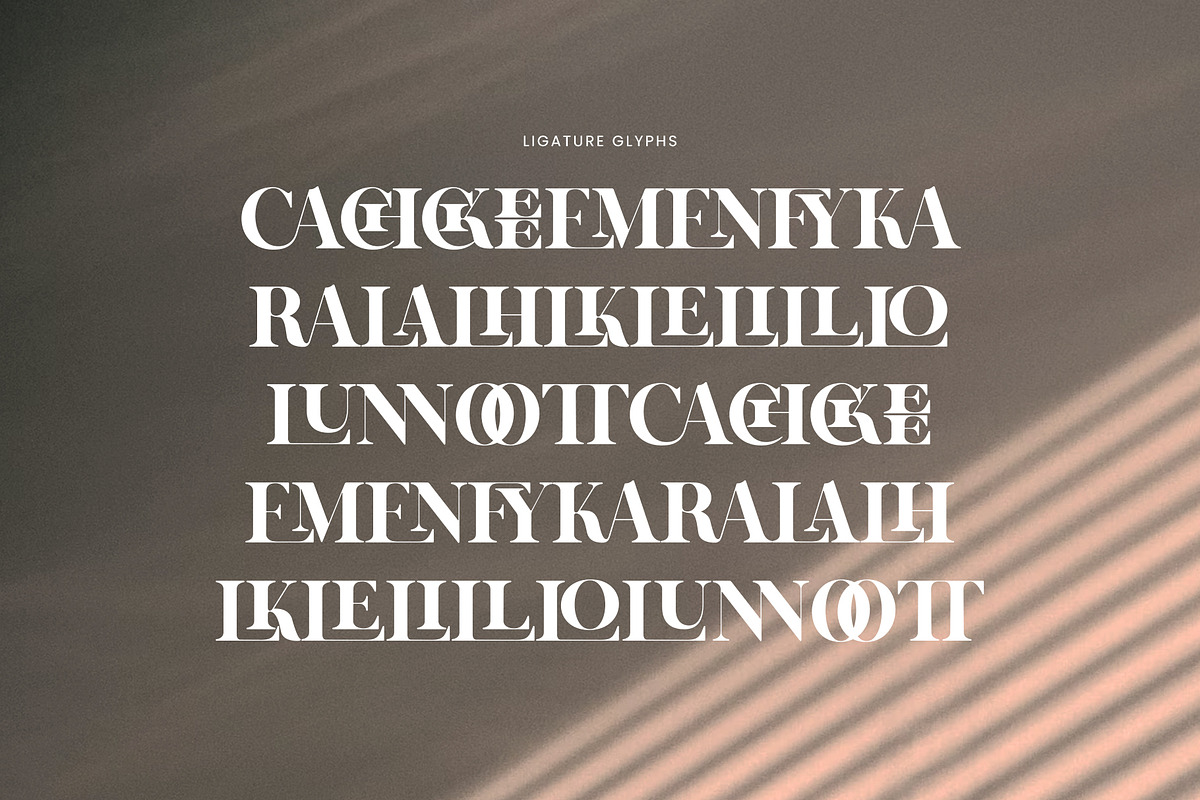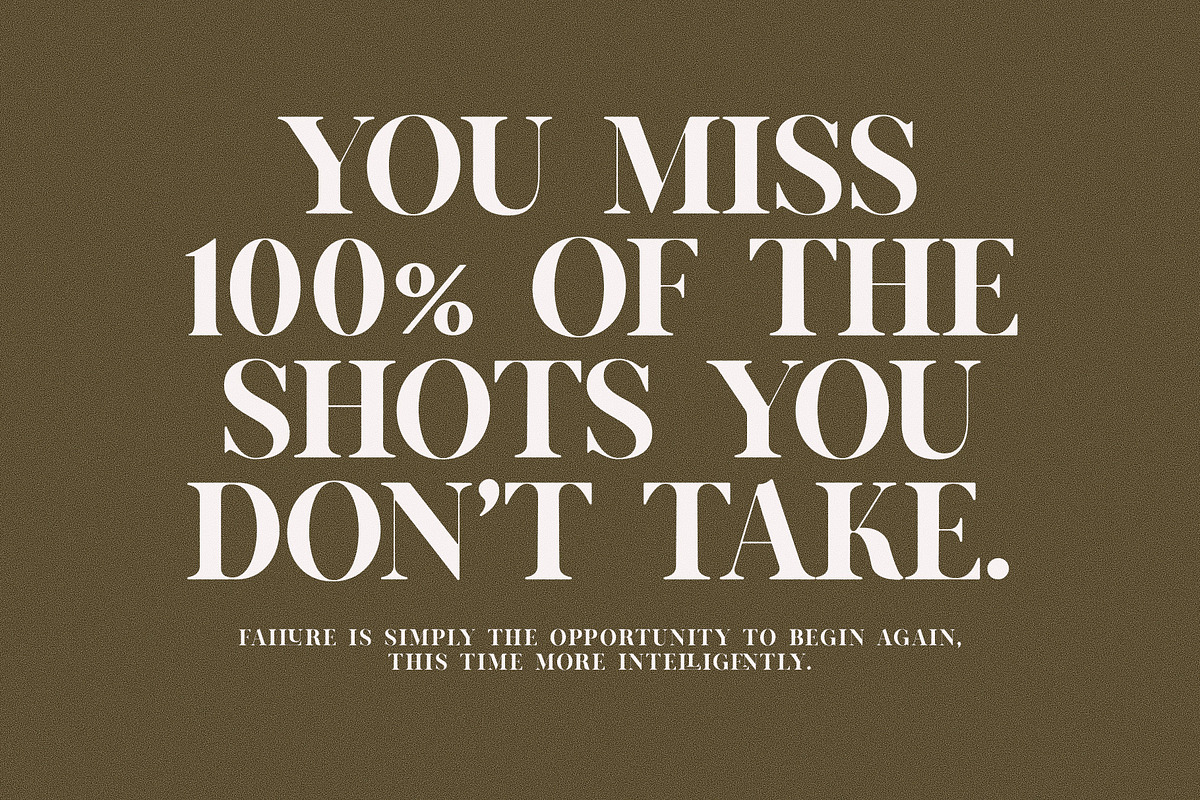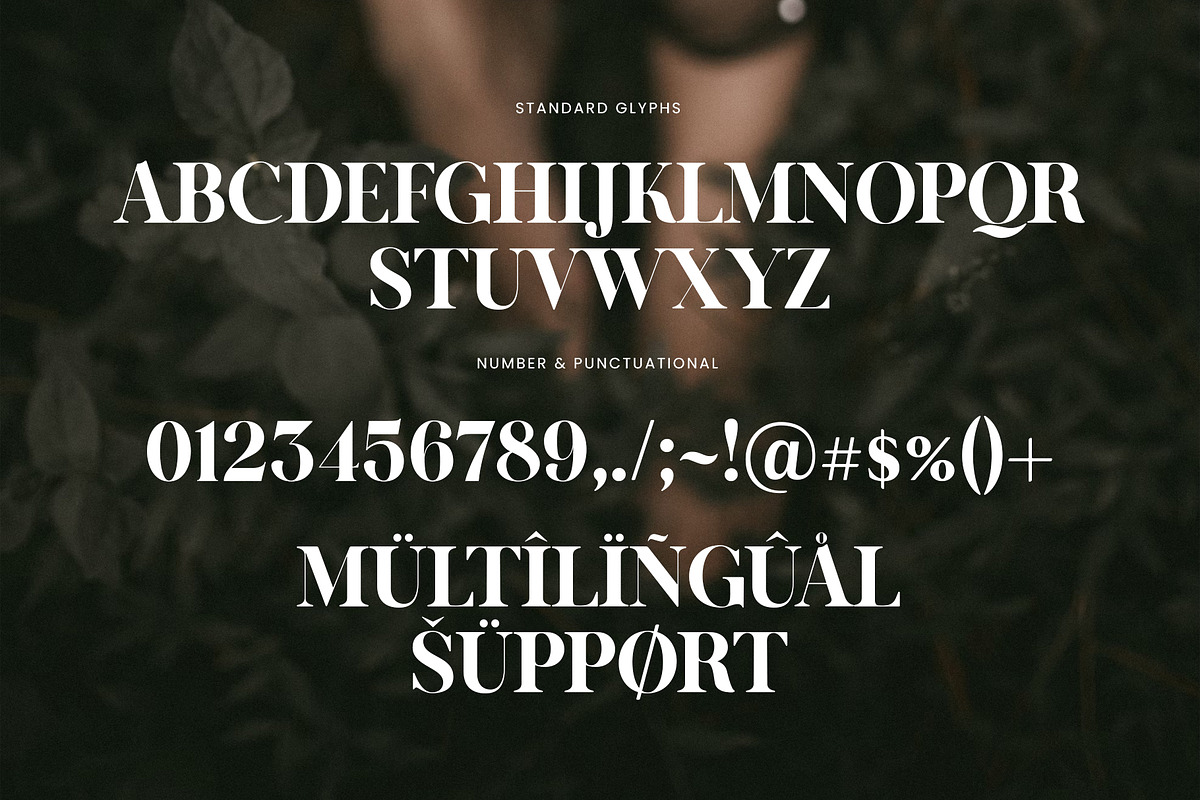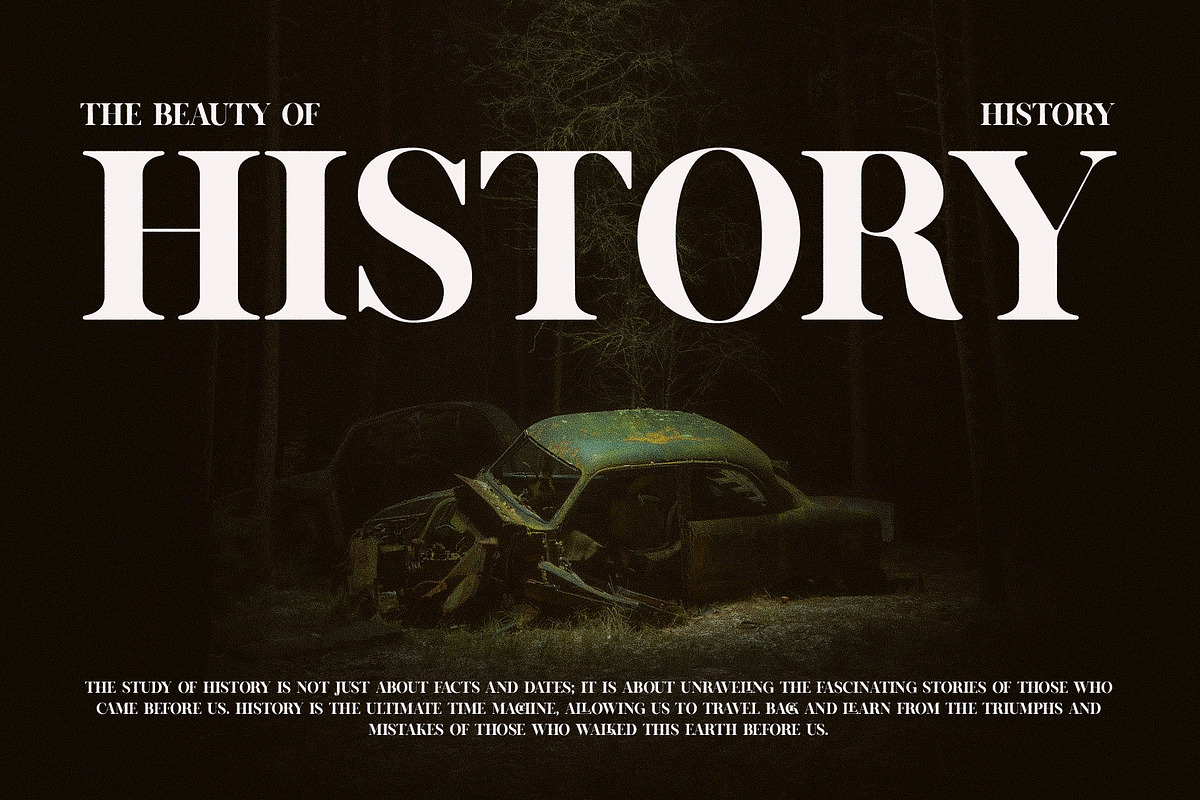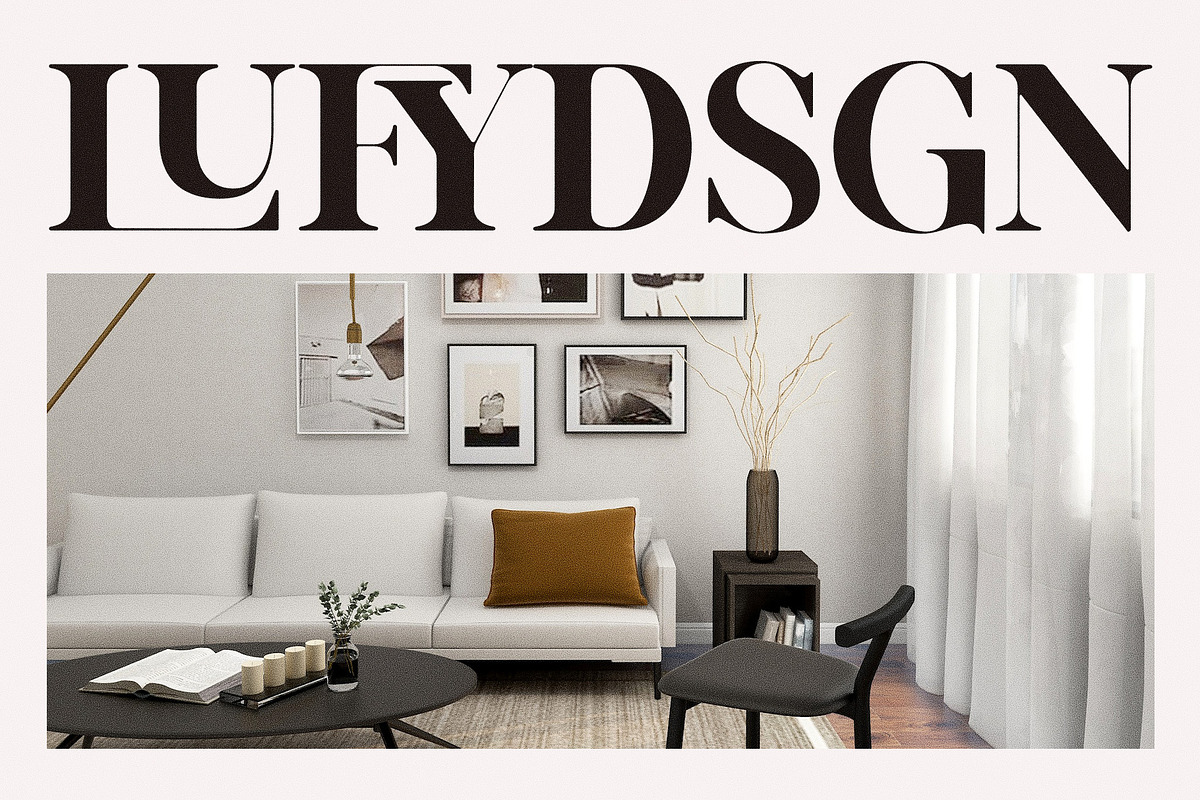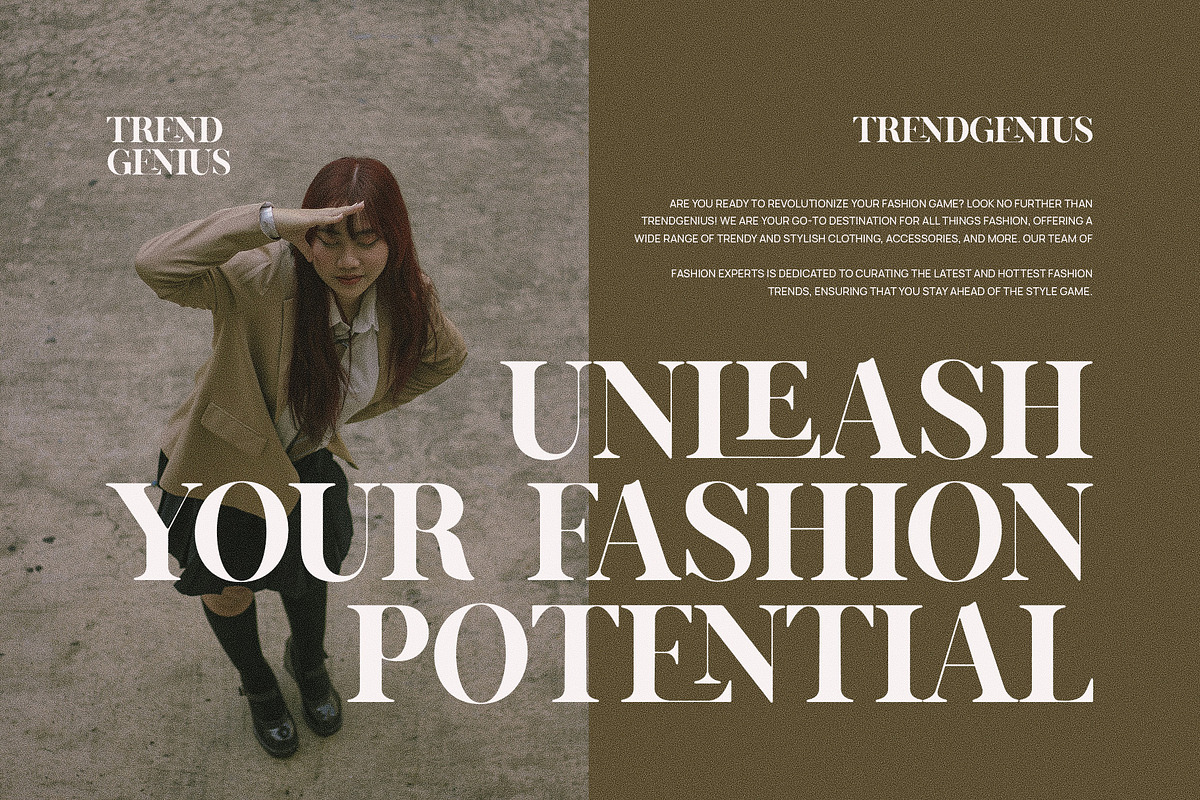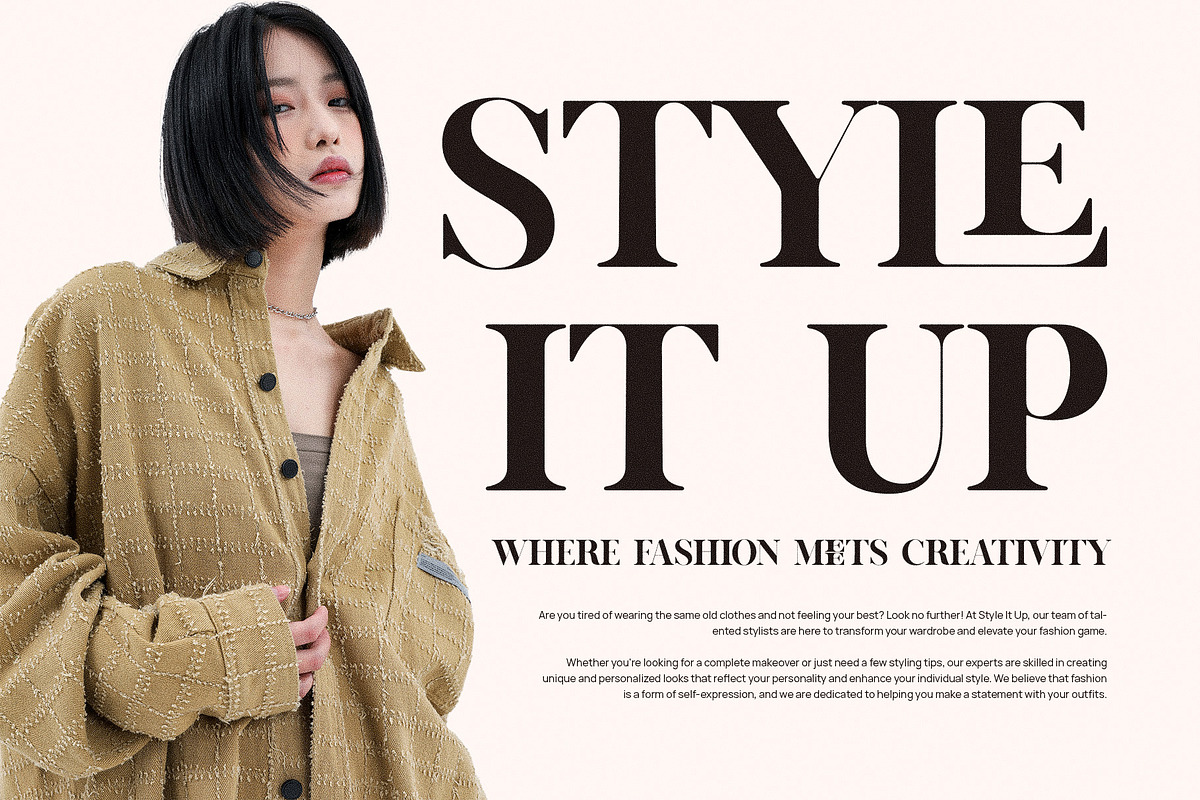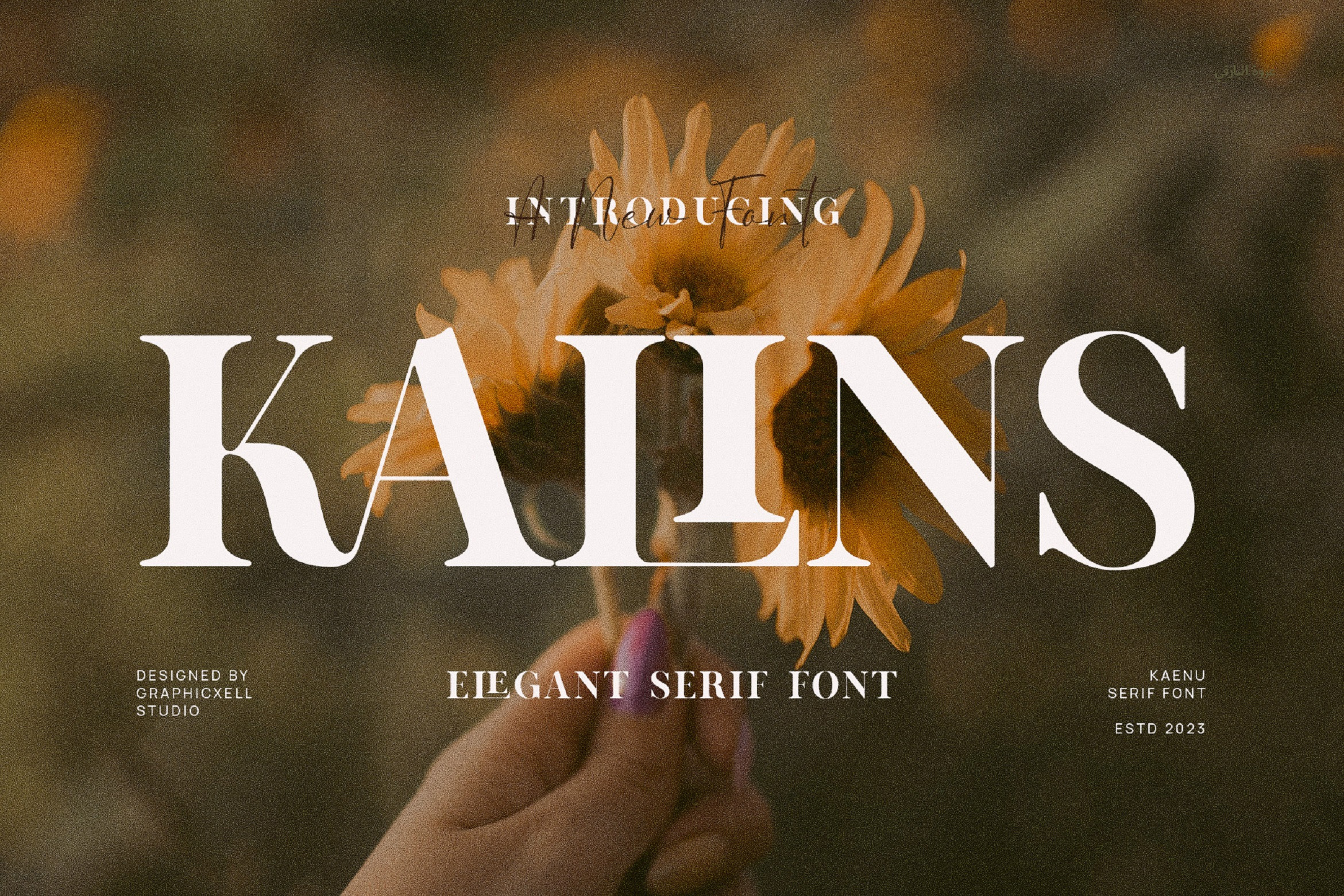
Kalins Elegant Ligature Serif Font
Kalins Elegant Ligature Serif Font is a stunning font that combines classic serif with intricate ligatures and swashes, adding a touch of sophistication and style to any project. The ligatures in this font are beautifully designed to seamlessly connect certain letter pairs, creating a smooth and elegant look. The swashes in Kalins Elegant Ligature Serif Font are artistic embellishments that extend from certain letters, adding a sense of flair and elegance to the text. Whether you're working on branding, logo design, wedding invitations, social media posts, advertisements, product packaging, labels, photography, watermarks, or stationery, this font will elevate your designs with its classy appeal. One of the key features of Kalins Elegant Ligature Serif Font is its high level of readability, ensuring that your message is clear and impactful. The font's ligatures add a unique touch, making your text stand out and leaving a lasting impression on your audience. No matter the project, Kalins Elegant Ligature Serif Font is a reliable choice that will not disappoint. Its versatility and elegance make it a valuable asset for any designer looking to add a touch of sophistication to their work. Whether you're a professional designer or just starting out, this font is a must-have for your collection.